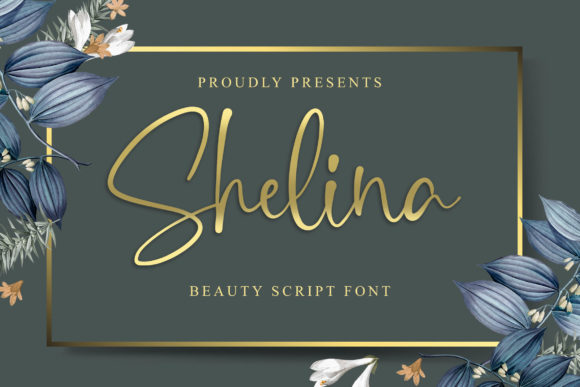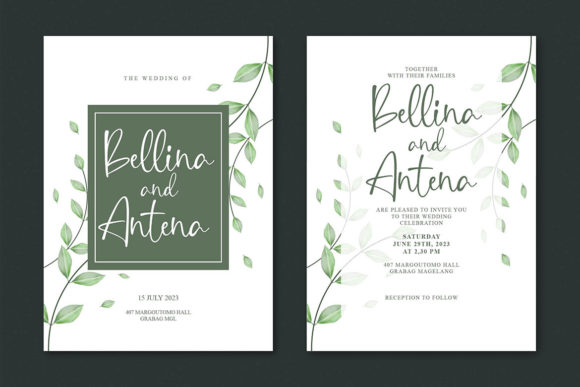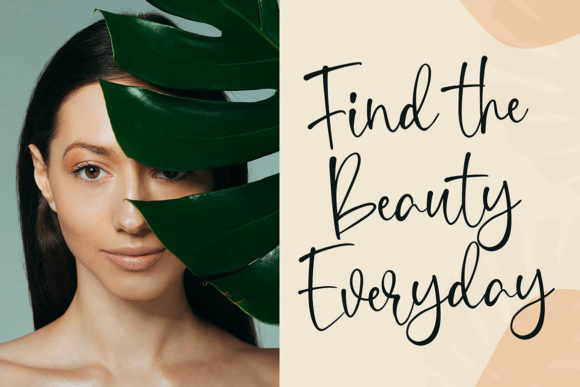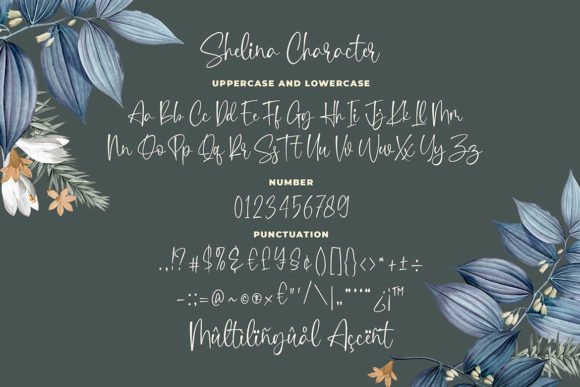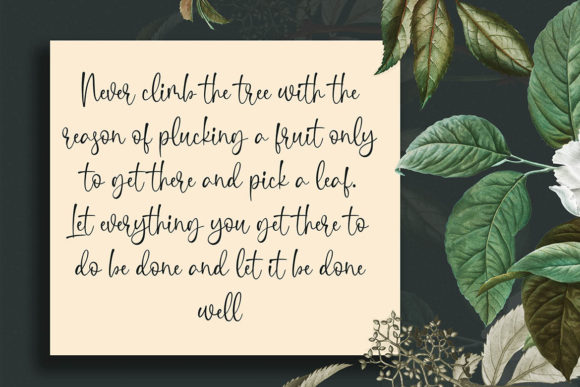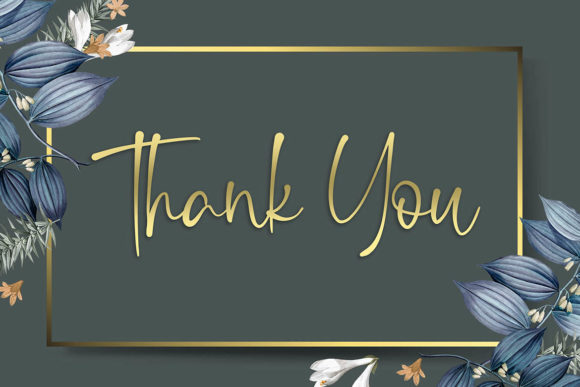
Shelina Font
About Shelina Font
Shelina feels equally beautiful and elegant, which makes it an outstanding script. Inspired by calligraphy, this font works well in posters, fashion designs, wedding projects, branding and much more!